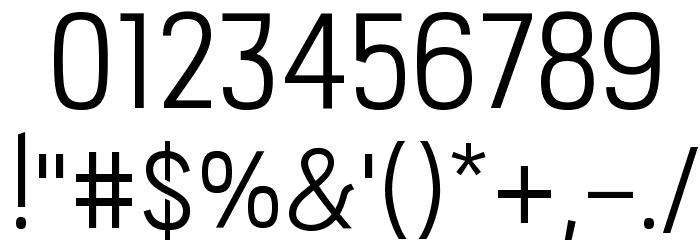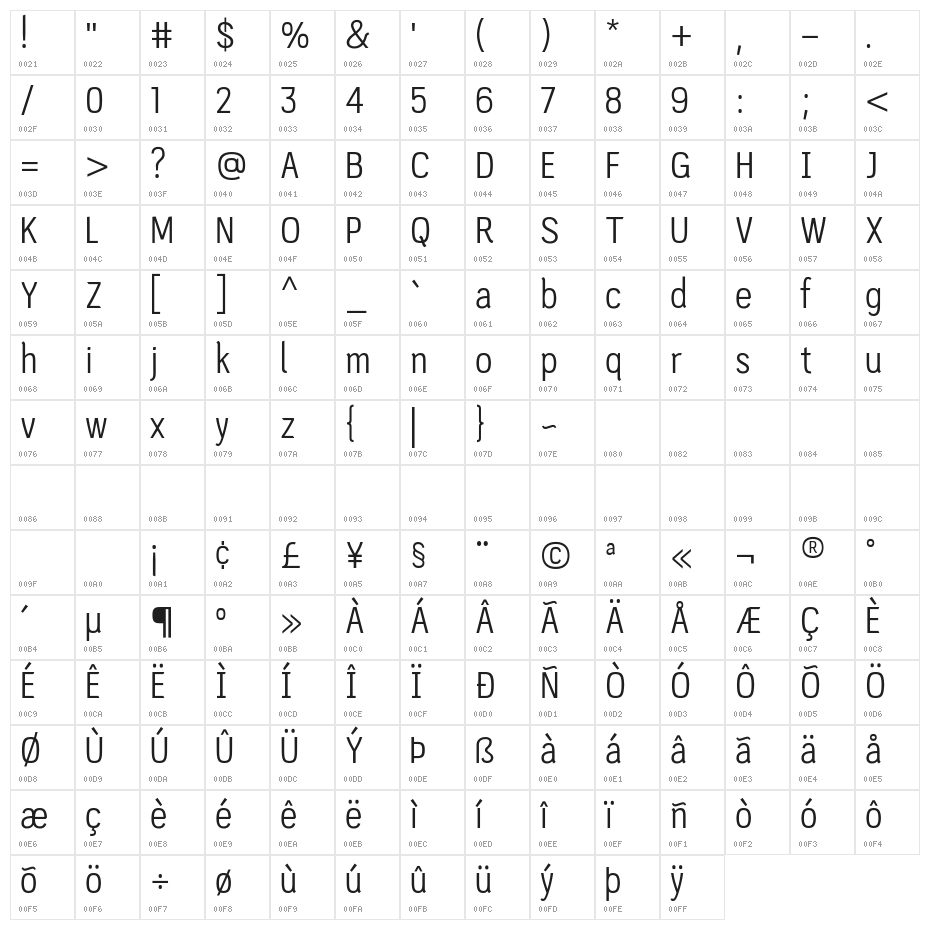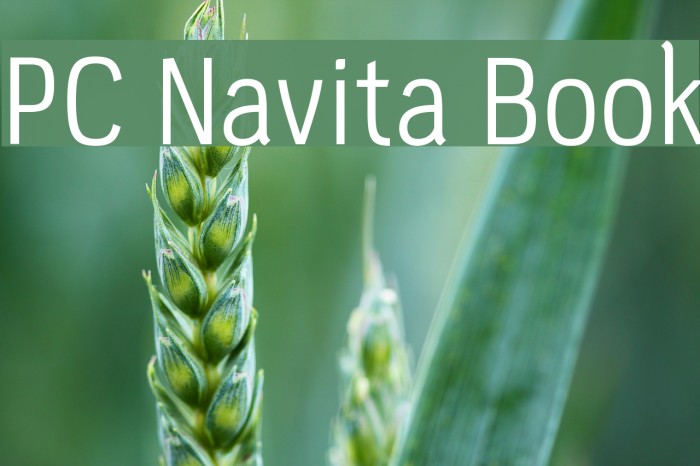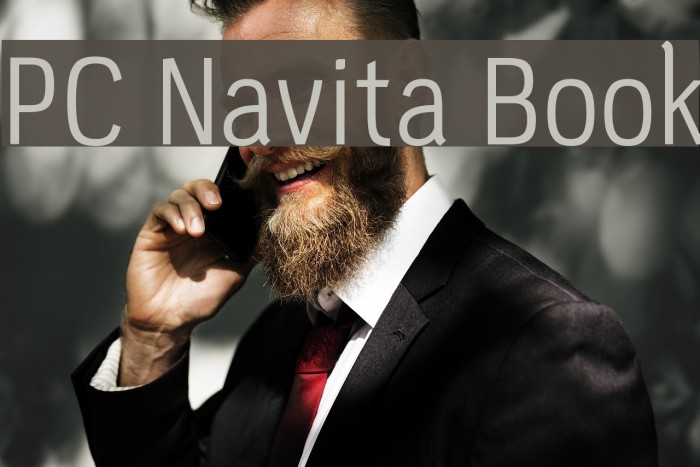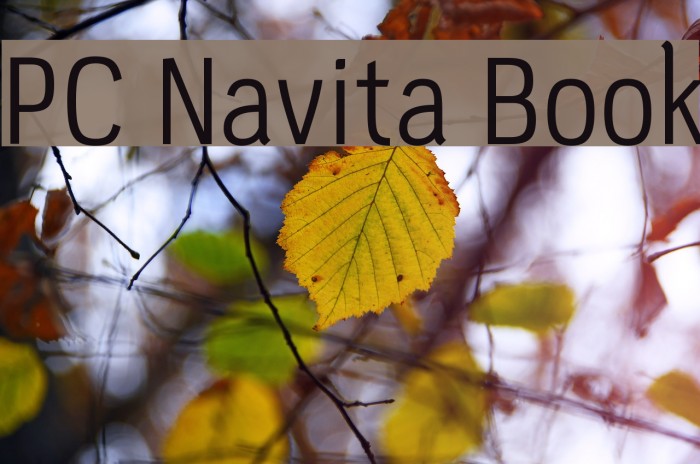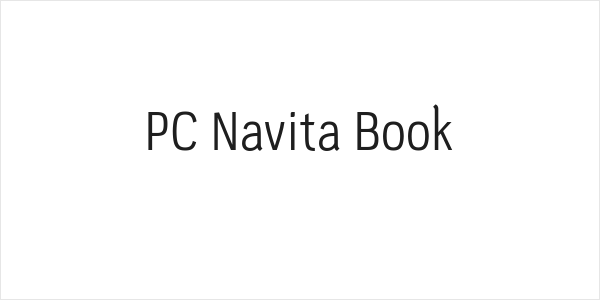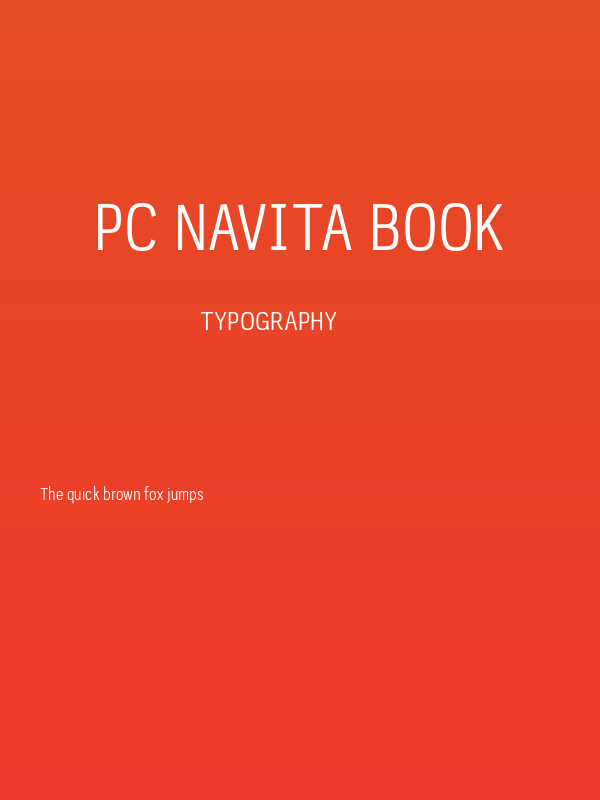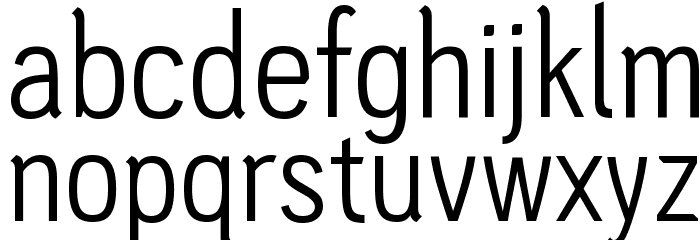
PC Navita Book Font
PC Navita Book Description
This font presents a clean and modern aesthetic, characterized by its sans-serif style. The letters are evenly spaced and exhibit a uniform stroke width, contributing to a balanced and harmonious appearance. The uppercase letters are slightly taller than average, giving them a commanding presence, while the lowercase letters maintain a consistent height that complements the uppercase. The numerals are clear and legible, designed to match the overall style of the alphabet. Special characters are included, maintaining the same design ethos, ensuring versatility across various applications. This font is ideal for projects that require clarity and modernity.
| Proposed Projects | Ideal for digital interfaces, corporate branding, signage, and editorial design. |